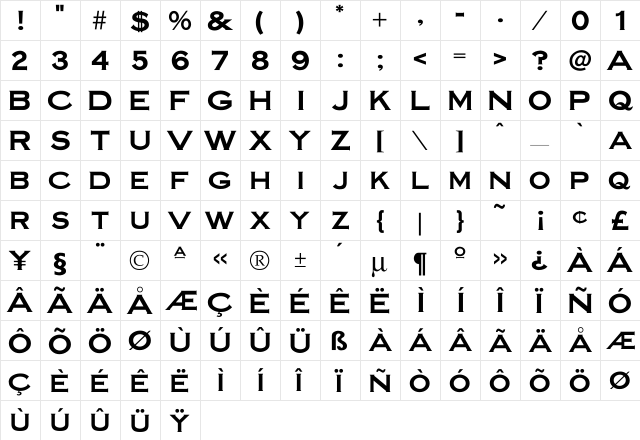
Steelman Regular
Design Context for Steelman Typeface
Steelman offers clean, dependable letterforms without strong stylistic allegiance, making it a practical choice for designers who need flexibility.